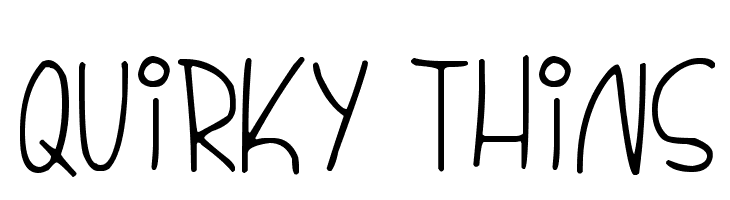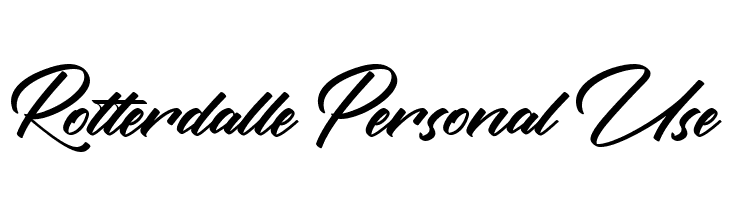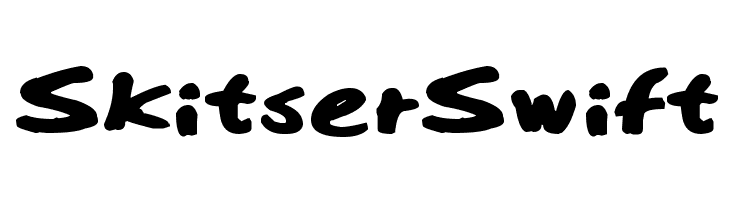
A bold, handwritten font with a playful and dynamic style.
A bold, elegant script font with flowing, cursive letterforms.
A modern, tall, and narrow font with a sleek, minimalistic design.
A bold, decorative font with swirling embellishments and geometric shapes.
A bold, rounded font with a playful and whimsical style.
A decorative font with stylized illustrations of Indonesian women in traditional attire.
A bold, extra-condensed font with geometric shapes and minimal stroke contrast.
A bold, dynamic font with a futuristic halftone effect and sporty aesthetic.